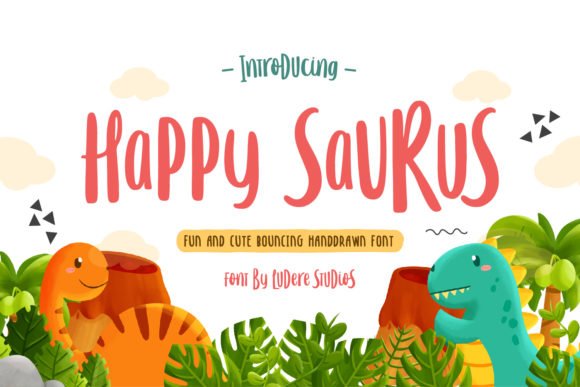
Unlock the Power of Joyful Typography
Have you ever been brainstorming a new design project, but something’s missing? You know, that spark that takes your idea from ordinary to extraordinary? For many designers, that spark comes from the perfect font. And today, I’m excited to introduce you to a font that’s sure to bring a smile to your face – the Happy Saurus Font.
This adorable handwritten font is more than just a pretty face. With its playful strokes and whimsical charm, it’s the perfect addition to any design that needs a dash of joy. Whether you’re creating a greeting card, a social media graphic, or a children’s book, the Happy Saurus Font is sure to add an extra layer of personality and whimsy to your work.
Key Features of Happy Saurus Font
- Font Family: Happy Saurus Font is a unique, hand-drawn font family with a playful and whimsical feel.
- Font Size: The font comes in three different sizes: Happy Saurus (20-40pt), Happy Saurus Outline (20-40pt), and Happy Saurus Shadow (20-40pt).
- Unique Characteristics: Features a distinctive, hand-drawn style with subtle imperfections, giving it a one-of-a-kind feel.
- Language Support: Supports a wide range of languages, including Latin, Cyrillic, and Greek scripts, making it suitable for multilingual designs.
Designer Review: Happy Saurus Font
Overall, I have mixed feelings about the Happy Saurus Font. While it has some delightful qualities, it also has some limitations that may make it less suitable for certain projects.
- Playful and whimsical vibe: The Happy Saurus Font has a fun and carefree personality that can add a touch of excitement to any design project.
- Wide range of uses: This font can be used for various purposes, from children’s books to advertising campaigns, and even for personal projects like blog posts and social media graphics.
- Customizable: The Happy Saurus Font can be customized to fit your specific needs, whether it’s adjusting the font size, color, or spacing.
Limitsations ⚠️
- Readability: While the font is playful and fun, it can be difficult to read, especially for longer blocks of text.
- Formality: The Happy Saurus Font may not be suitable for formal projects, such as business reports or academic papers.
- Font weight: The font weight may not be consistent across different font sizes, which can affect the overall design.
The Happy Saurus Font is a fun and versatile font that can add a touch of personality to any design project. However, it may not be the best choice for formal or long-form content. With some careful planning and customization, this font can be a great addition to your design toolkit.
The Happy Saurus Font is ideal for creating playful and whimsical designs. Some common use cases include:
– Children’s book illustrations
– Party invitations and decorations
– Social media graphics and ads
– Branding and marketing materials for companies with a fun and youthful vibe.